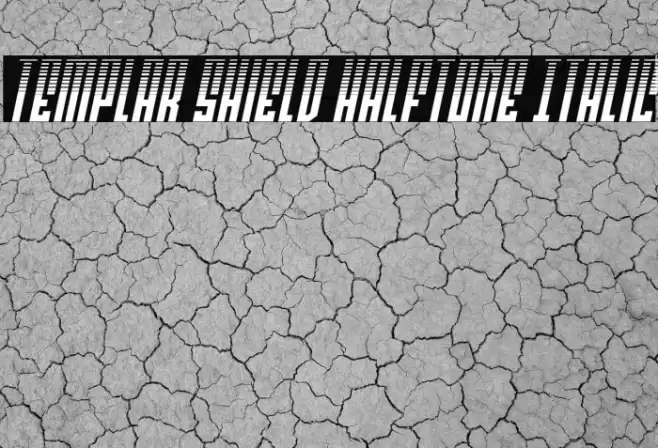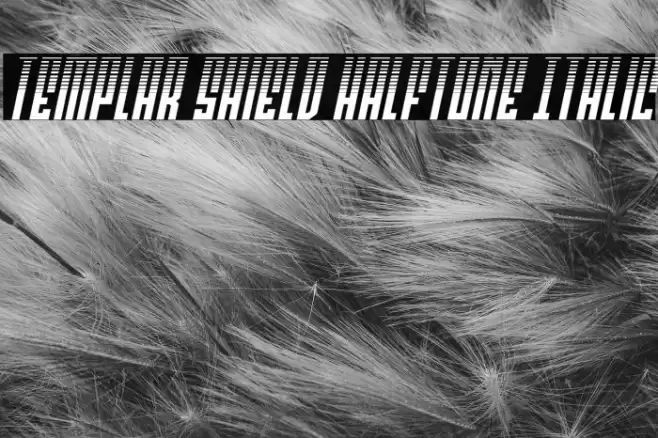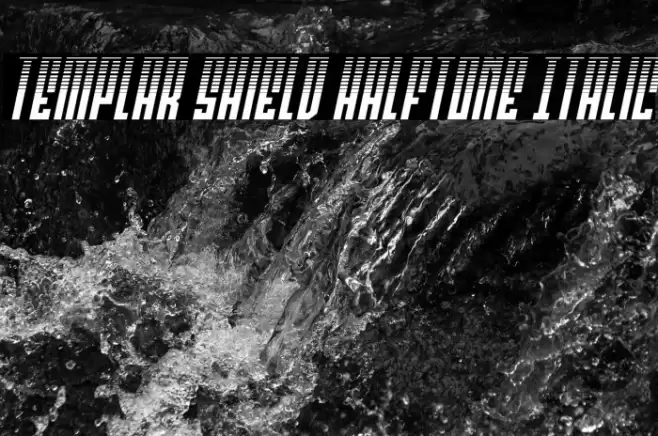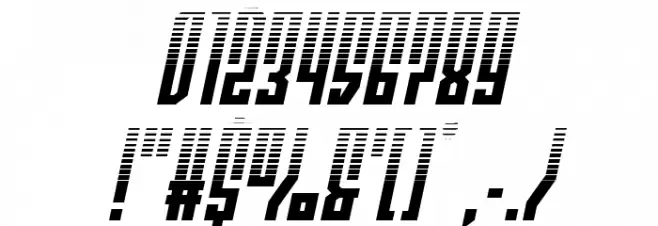
Templar Shield Halftone Italic Font
Templar Shield Halftone Italic Description
This font features a bold, italicized style with a distinctive halftone effect that creates a sense of movement and energy. The characters are elongated and slightly condensed, with sharp, angular lines that give them a futuristic and dynamic appearance. The halftone pattern is most prominent at the top of each character, gradually fading towards the bottom, which adds a unique visual texture. This design choice makes the font particularly eye-catching and suitable for attention-grabbing headlines or titles. The overall aesthetic is modern and edgy, with a strong emphasis on visual impact.
A bold, italicized font with a halftone effect, offering a dynamic and futuristic look from Regular fonts.
- Proposed Projects: Ideal for use in sci-fi themed projects, video game titles, posters, or any design requiring a bold, modern statement.